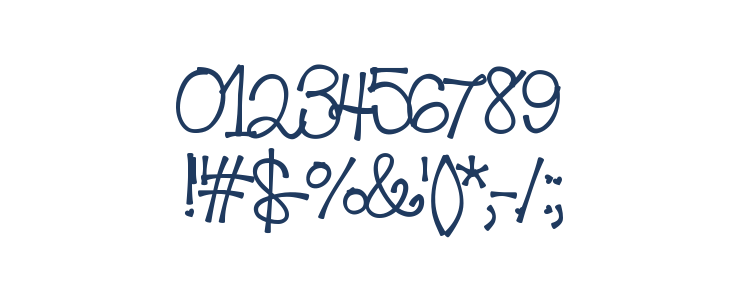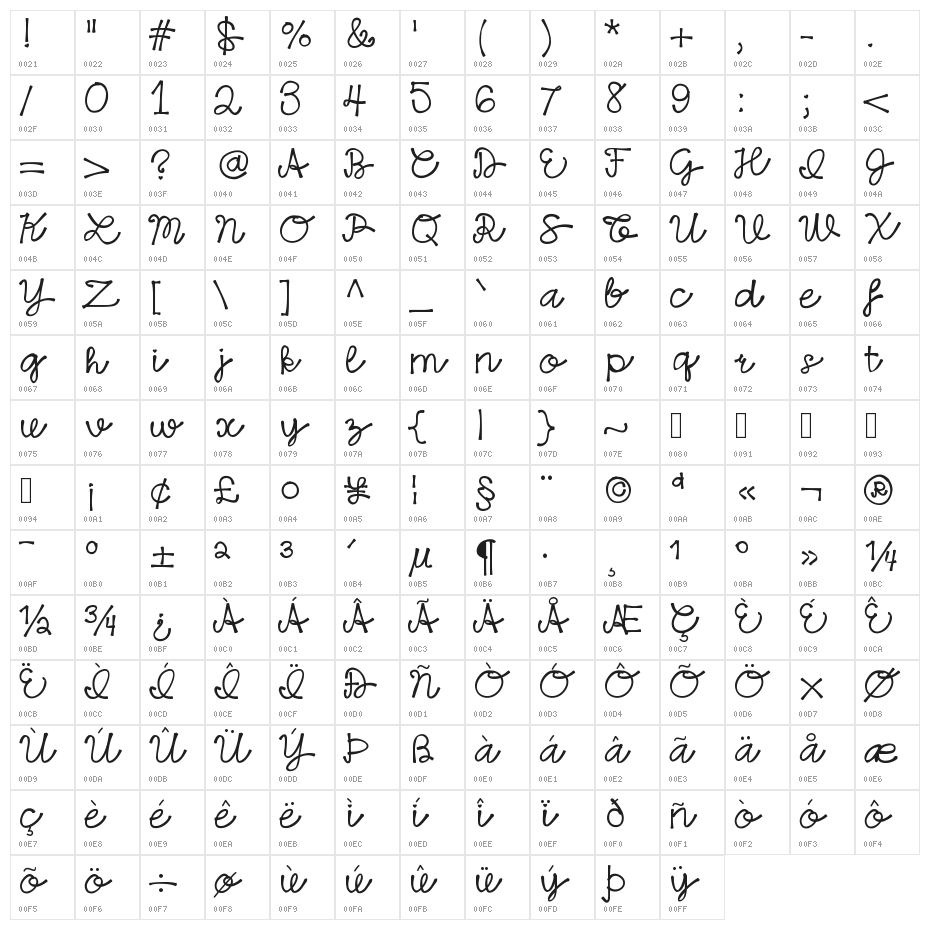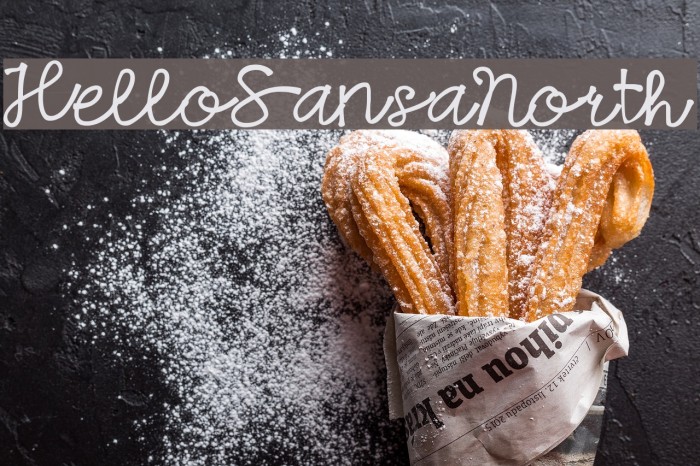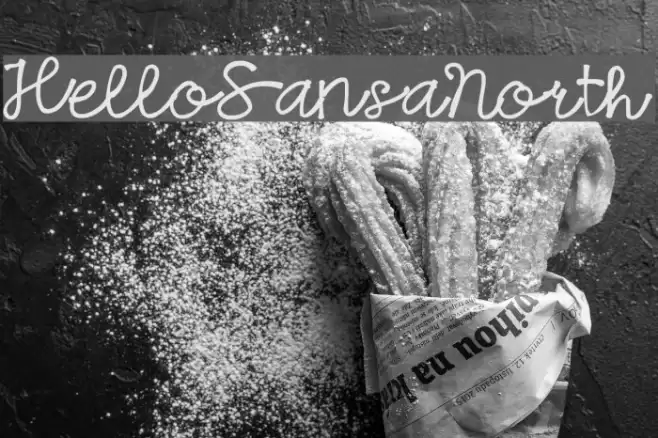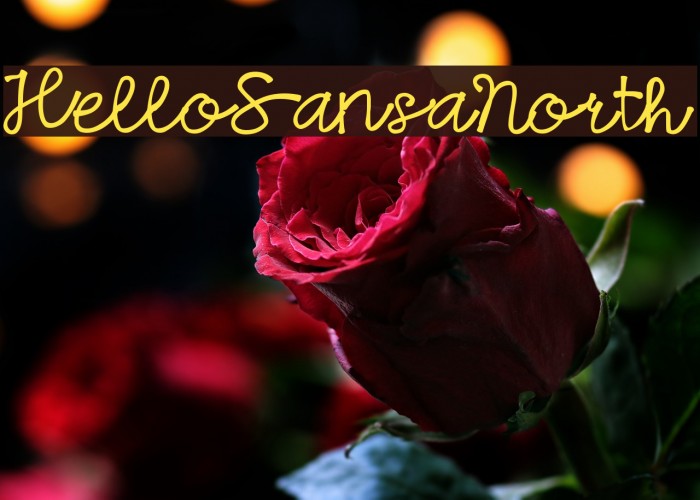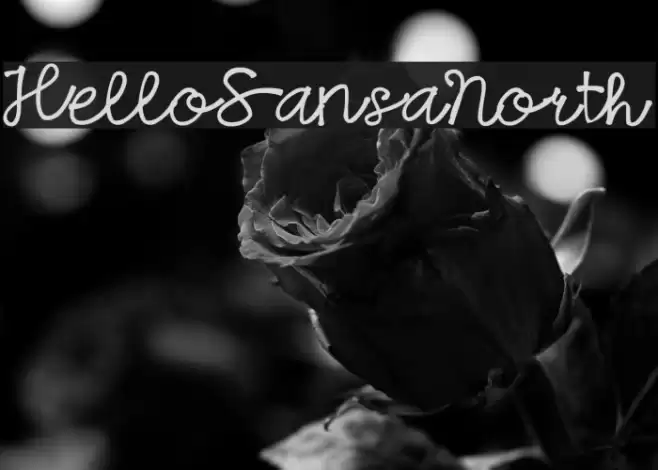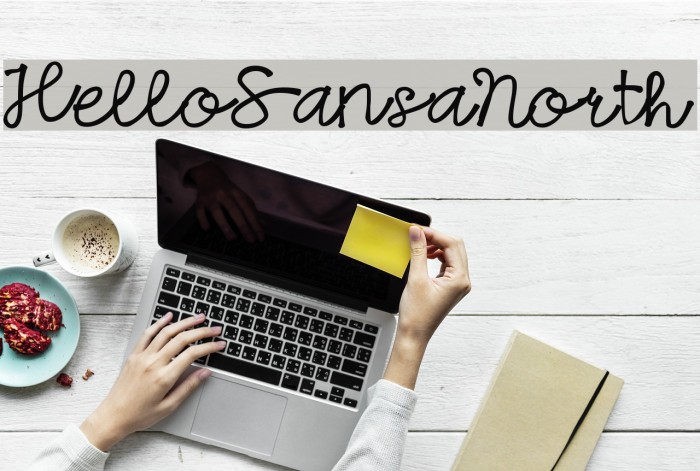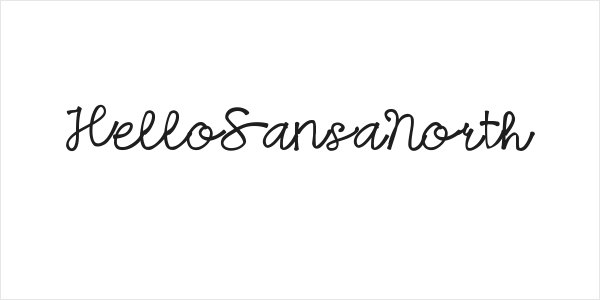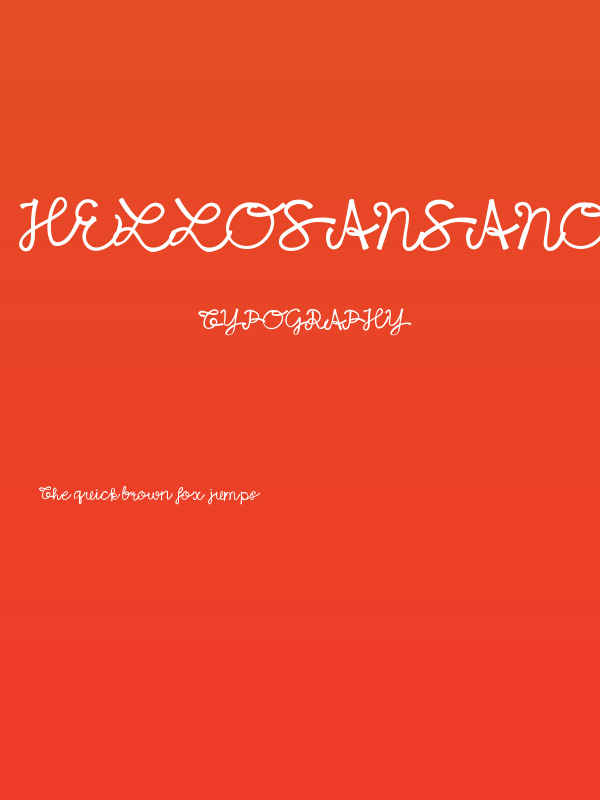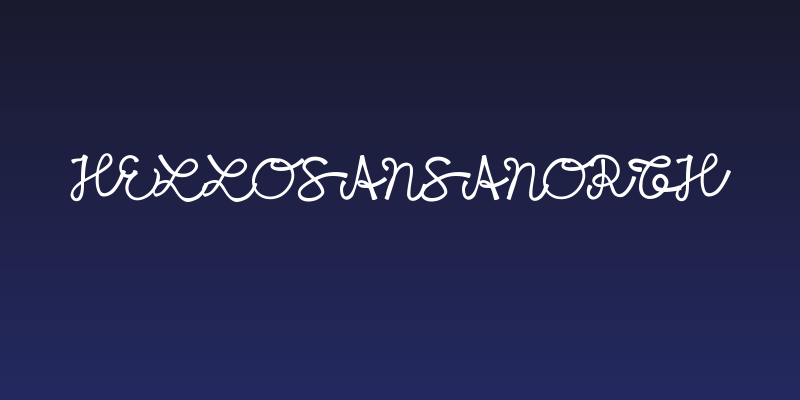
HelloSansaNorth Font
HelloSansaNorth Description
This font features a playful and flowing script style, characterized by its cursive, handwritten appearance. The letters are interconnected, creating a seamless and fluid look. The uppercase letters exhibit a whimsical flair with loops and curves, while the lowercase letters maintain a consistent, smooth flow. Numbers and special characters are designed to match the overall style, with a balance of elegance and readability. The strokes are moderately thick, providing good visibility without overwhelming the design. This font exudes a sense of casual elegance, making it suitable for creative and informal applications.
Use CaseLogos, Invitations, Greeting Cards
Proposed ProjectsIdeal for wedding invitations, greeting cards, personal branding, and creative projects.